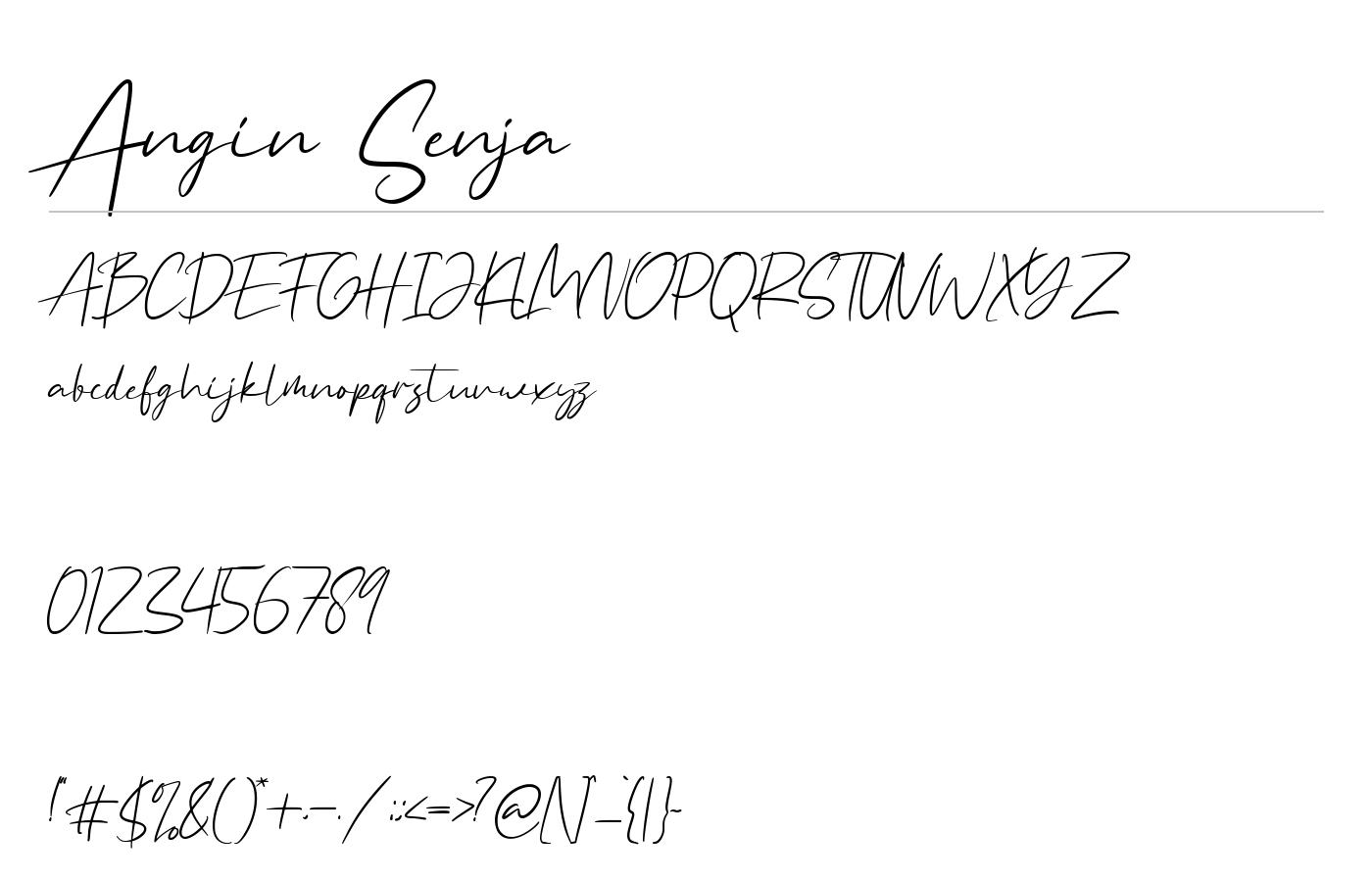
Angin Senja is a delicate and elegant handwritten script font characterized by its thin, flowing strokes and naturally casual yet sophisticated feel. With its tall, slender letterforms and smooth curves, it conveys a modern, personal touch perfect for branding, invitations, and stylish editorial designs. This font's light and airy style works beautifully for projects that need a refined, approachable, and artistic look.
Angin Senja Font
About Angin Senja Font